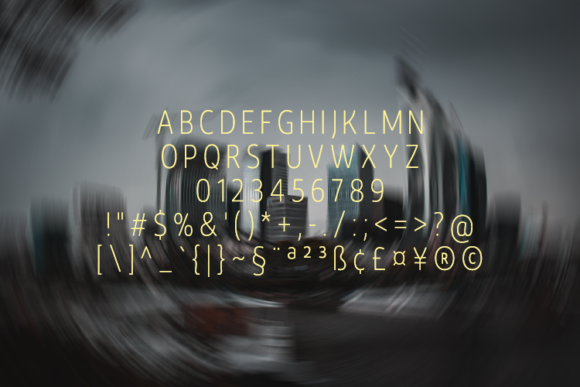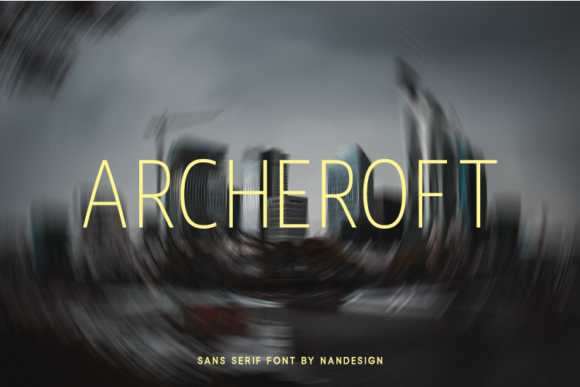
Introducing Archeroft Font: A Timeless Typographic Marvel
In the realm of typography, few fonts manage to strike a balance between classic elegance and modern flair. Archeroft Font, however, is an exception. Inspired by the timeless beauty of traditional typography, Archeroft brings its own unique style to the table, making it an excellent choice for any design project. Whether you’re working on a website, print materials, moving images, or any other creative endeavor, Archeroft is sure to make a lasting impression.
A Perfect Blend of Classic and Modern
Archeroft’s design is rooted in the rich history of typography, drawing inspiration from classic fonts that have stood the test of time. Yet, it infuses this classic foundation with a modern twist, resulting in a font that feels both nostalgic and contemporary. This blend of old and new makes Archeroft incredibly versatile, capable of fitting into a wide range of design contexts.
Key Features of Archeroft Font
- Unique Style: Archeroft’s distinctive style sets it apart from more traditional fonts. Its unique flair makes it an excellent choice for designers looking to add a touch of personality to their work.
- Versatility: Whether it’s for web design, print, motion graphics, or any other medium, Archeroft performs exceptionally well. Its adaptability makes it a valuable asset for any designer.
- Legibility: Despite its unique style, Archeroft remains highly legible, ensuring that your message is conveyed clearly and effectively.
- Aesthetic Appeal: With its elegant lines and classic undertones, Archeroft adds a level of sophistication to any design project.
Applications of Archeroft Font
The versatility of Archeroft Font makes it suitable for a myriad of applications:
- Web Design: Use Archeroft to create stunning website headers, buttons, and text elements that captivate your audience.
- Print Design: From business cards and brochures to posters and magazines, Archeroft can elevate your print materials with its classic yet modern appeal.
- Motion Graphics: Add a touch of elegance to your videos, animations, and other moving images with Archeroft’s distinctive typography.
- Crafting and DIY Projects: For crafters and DIY enthusiasts, Archeroft can add a professional touch to handmade cards, art pieces, and other creative projects.
Why Choose Archeroft Font?
In a world where typography plays a crucial role in design, choosing the right font can make all the difference. Here are a few reasons why Archeroft stands out:
- Timeless Appeal: Archeroft’s design ensures that your work will remain stylish and relevant for years to come.
- Easy to Read: The font’s legibility ensures that your message is communicated effectively, without compromising on style.
- Unique Identity: With Archeroft, you can give your design project a unique identity that sets it apart from the rest.
Archeroft Font is more than just a typeface; it’s a design statement. Its perfect blend of classic inspiration and modern style makes it an invaluable tool for designers and crafters alike. Whether you’re working on a digital project or a physical one, Archeroft is sure to bring a level of sophistication and elegance that’s hard to match. With its versatility, legibility, and aesthetic appeal, Archeroft is poised to become a go-to font for anyone looking to make a lasting impression.
So, if you’re looking to elevate your design projects with a font that combines the best of classic typography with a modern edge, look no further than Archeroft. Its impact is sure to be felt across any medium, making it a fantastic addition to your typographic arsenal.